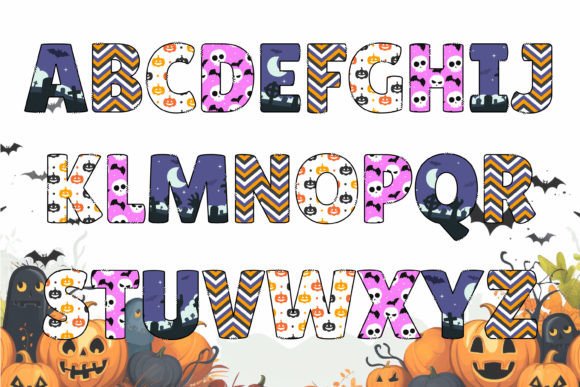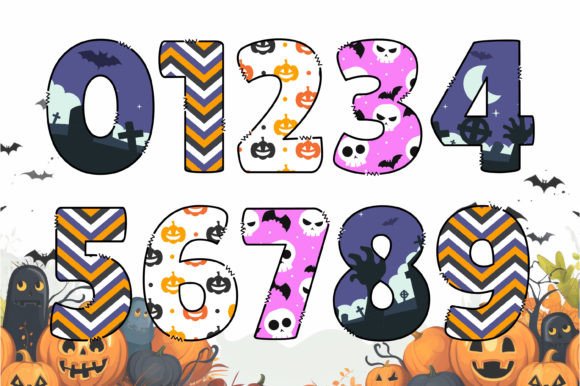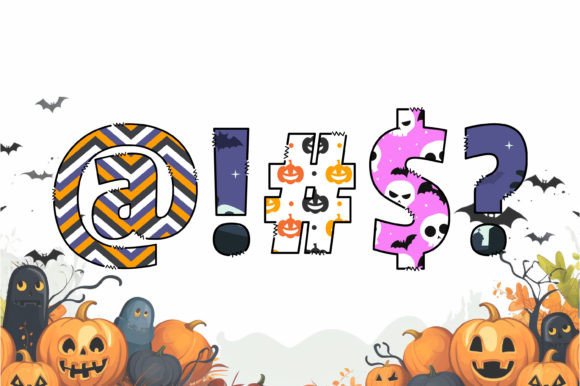
Halloween Party Font: A Spook-tacular Addition to Your Designs
As the spookiest time of the year approaches, designers and crafters are on the lookout for the perfect fonts to add a touch of eerie elegance to their Halloween-themed creations. If you’re planning a Halloween party or simply want to create some festive decorations, a Halloween party font is an essential element to get right. In this article, we’ll dive into the world of Halloween party fonts, exploring their uses, benefits, and compatibility with various design programs.
The Versatility of Halloween Party Fonts
Halloween party fonts are not just limited to Halloween-themed designs; they can add a playful touch to various creative projects. These fonts are often used in designs that aim to convey a playful or artistic feel, such as:
- Children’s books: Whimsical fonts can create an engaging reading experience for young audiences.
- Posters: Eye-catching fonts can grab attention and make your poster stand out.
- Invitations: A playful font can set the tone for a fun and festive event.
- Greeting cards: Unique fonts can add a personal touch to your cards.
Characteristics of Halloween Party Fonts
Halloween party fonts often feature:
- Whimsical and playful designs
- Eerie and spooky elements
- Colorful and vibrant colors
- Unique and creative lettering
Tips for Using Halloween Party Fonts
To get the most out of your Halloween party font, follow these tips:
- Experiment with different colors and combinations to create a unique look.
- Use the font in conjunction with other design elements, such as images and graphics.
- Consider the tone and atmosphere you want to create with your design.
A Halloween party font can add a touch of magic to your designs, making them stand out from the crowd. With their versatility, playfulness, and eerie elegance, these fonts are perfect for a wide range of creative projects. By understanding the characteristics and compatibility of Halloween party fonts, you can unlock a world of creative possibilities. So, go ahead and get creative with your Halloween party font – the spookiest time of the year is just around the corner!